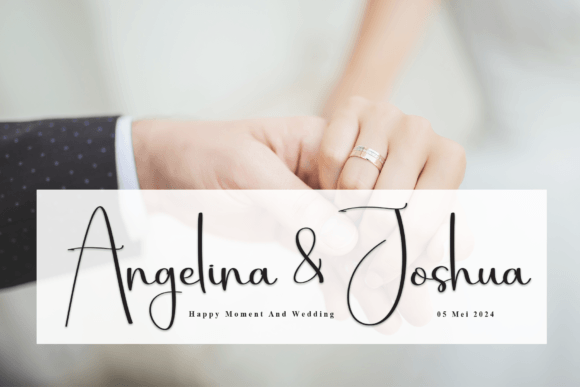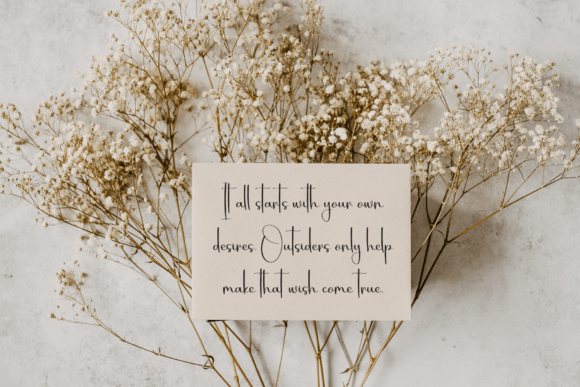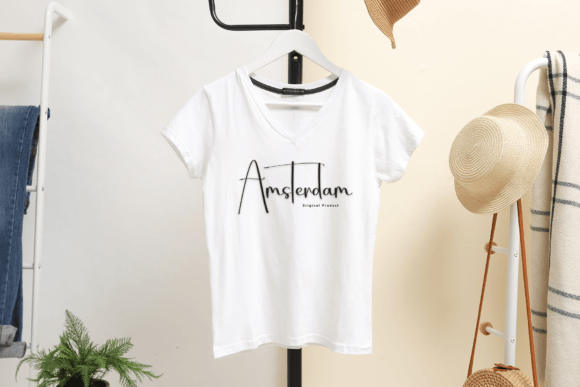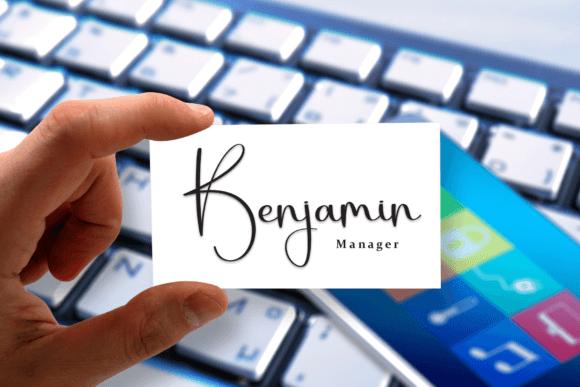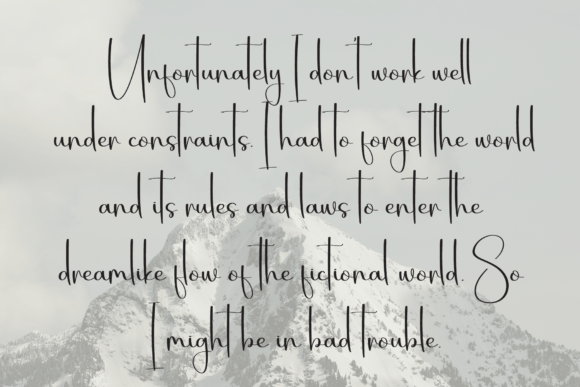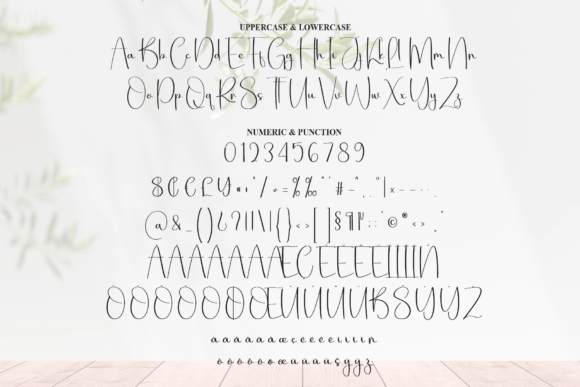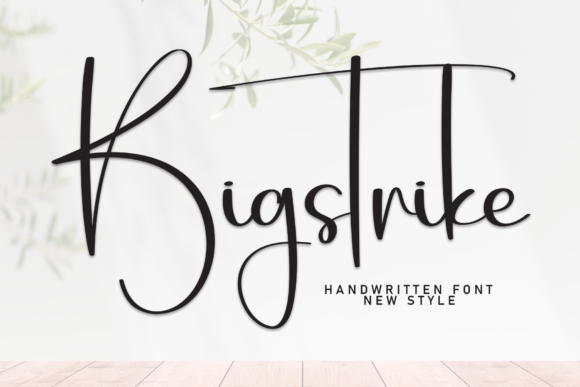
Introducing Bigstrike Font: The Charming Handwritten Style for Your Designs
In the world of typography, fonts play a crucial role in conveying the tone and personality of a design. If you’re looking for a font that can add a sweet, personal touch to your projects, look no further than Bigstrike. This charming handwritten font is designed to bring warmth and coziness to your designs, making it perfect for invitations, greeting cards, and branding that requires a friendly and approachable feel.
The Characteristics of Bigstrike Font
Bigstrike is a beautifully crafted handwritten font that boasts smooth, flowing strokes and a friendly character. Its elegant and cursive style is reminiscent of traditional handwriting, making it perfect for designs that require a personal touch. The font’s charming and whimsical feel is sure to capture the hearts of designers and crafters alike, and its versatility ensures that it can be used in a wide range of projects.
Perfect for Invitations and Greeting Cards
Invitations and greeting cards are special occasions that require a personal and thoughtful touch. Bigstrike font is ideal for these types of projects, as it adds a warm and cozy feel to your designs. Whether you’re creating wedding invitations, birthday cards, or holiday greetings, Bigstrike is sure to make your designs stand out. Its elegant and cursive style is perfect for formal and informal occasions, and its friendly character ensures that your designs will be well-received by your audience.
Cozy Branding with Bigstrike
In today’s competitive market, branding is more important than ever. A well-designed brand identity can make all the difference in attracting and retaining customers. Bigstrike font is perfect for cozy branding, as it adds a warm and inviting feel to your designs. Whether you’re creating a logo, packaging, or advertising materials, Bigstrike is sure to bring a touch of personality and charm to your brand.
Why Choose Bigstrike Font?
• Unique and charming style: Bigstrike font has a unique and charming style that’s sure to capture the hearts of designers and crafters alike.
• Versatile: Bigstrike is a versatile font that can be used in a wide range of projects, from invitations and greeting cards to branding and advertising materials.
• Elegant and cursive: Bigstrike’s elegant and cursive style is perfect for formal and informal occasions.
• Easy to read: Bigstrike is easy to read, making it perfect for designs that require a clear and concise message.
Tips and Tricks for Working with Bigstrike
• Experiment with different sizes: Bigstrike font looks great in a variety of sizes, from small and delicate to large and bold.
• Pair with other fonts: Bigstrike pairs well with other fonts, such as sans-serif fonts and script fonts.
• Use in combination with images: Bigstrike looks great in combination with images, such as photographs and illustrations.
In conclusion, Bigstrike font is a charming handwritten font that’s perfect for designers and crafters looking to add a sweet, personal touch to their designs. Its smooth, flowing strokes and friendly character make it ideal for invitations, greeting cards, and cozy branding. With its versatility and ease of use, Bigstrike is sure to become a favorite font in your collection.